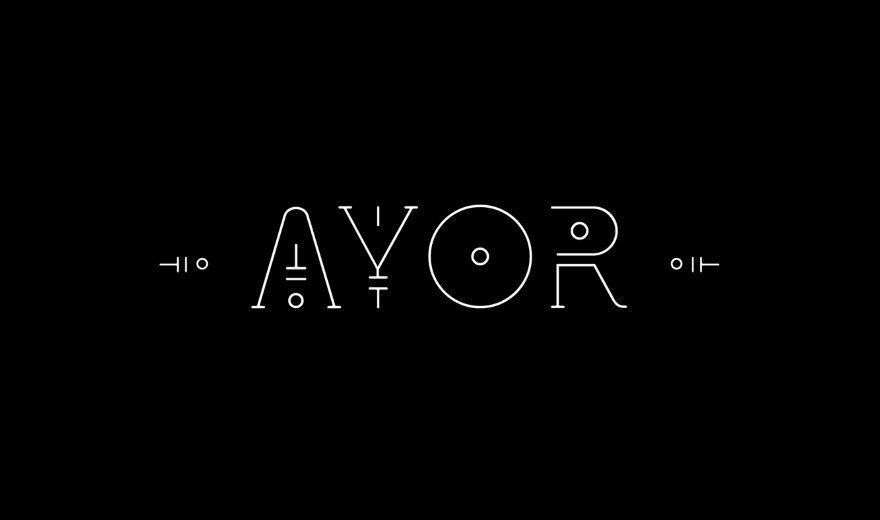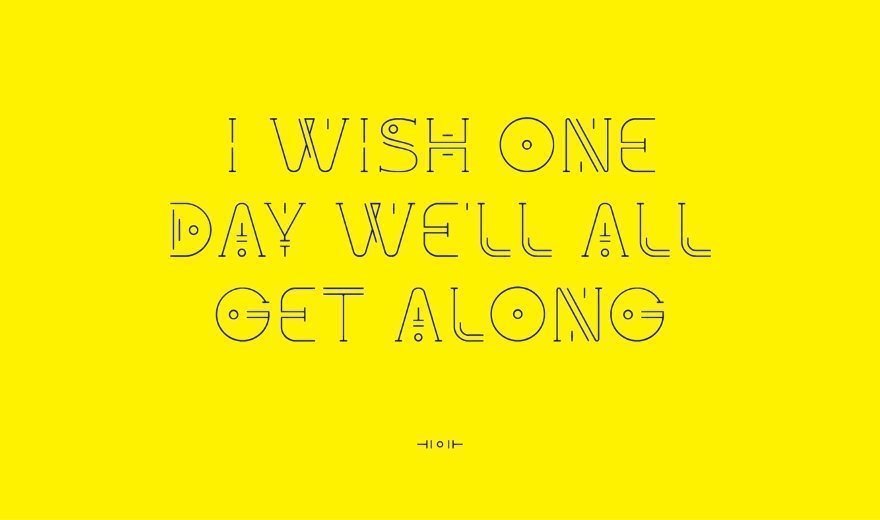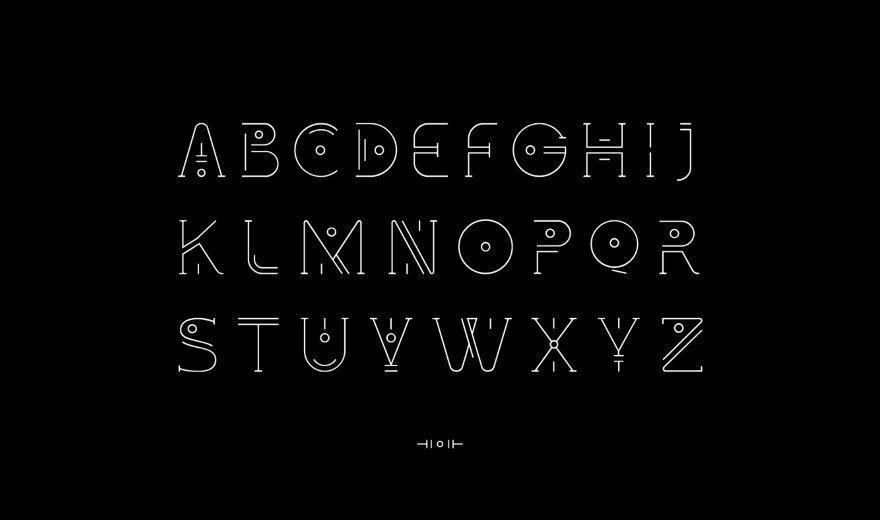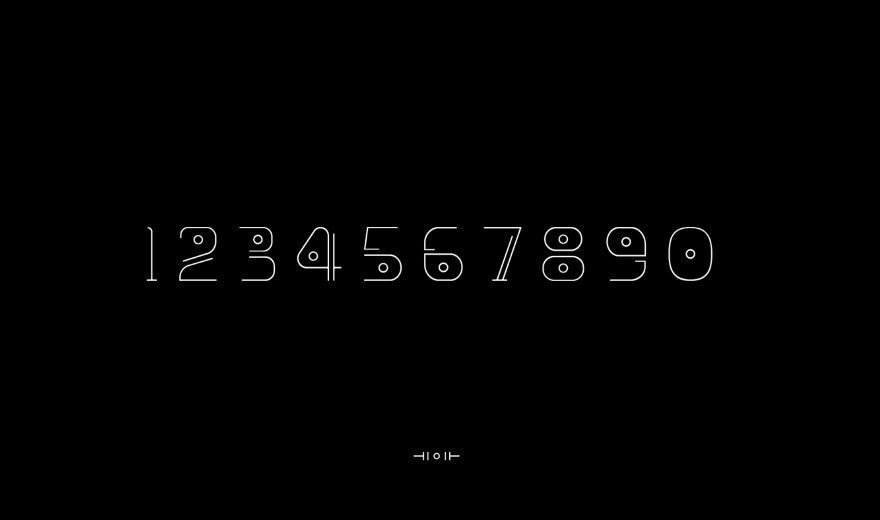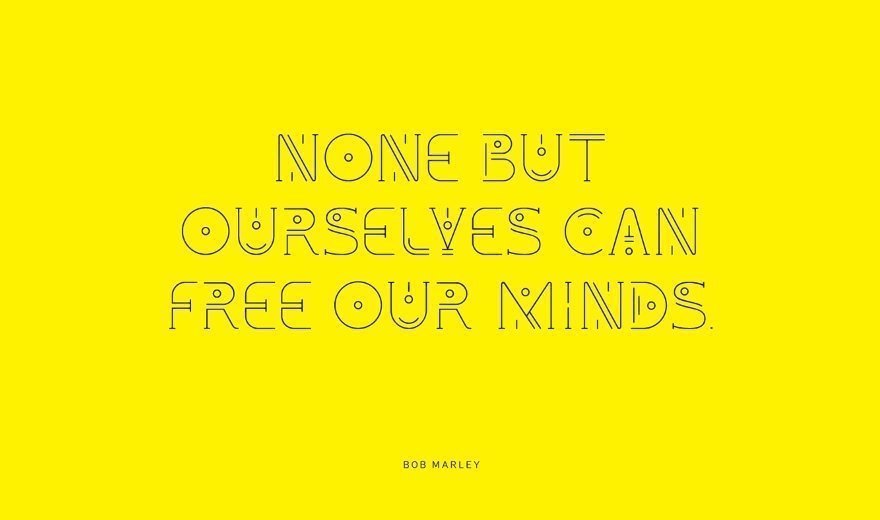
Maeet the Ayor - a free experimental display font. This free font contains a full set of Latin glyphs. This free font works great for quotes, logos, posters, headlines, t-shirts and more!
Created by Duah Francis Boafo